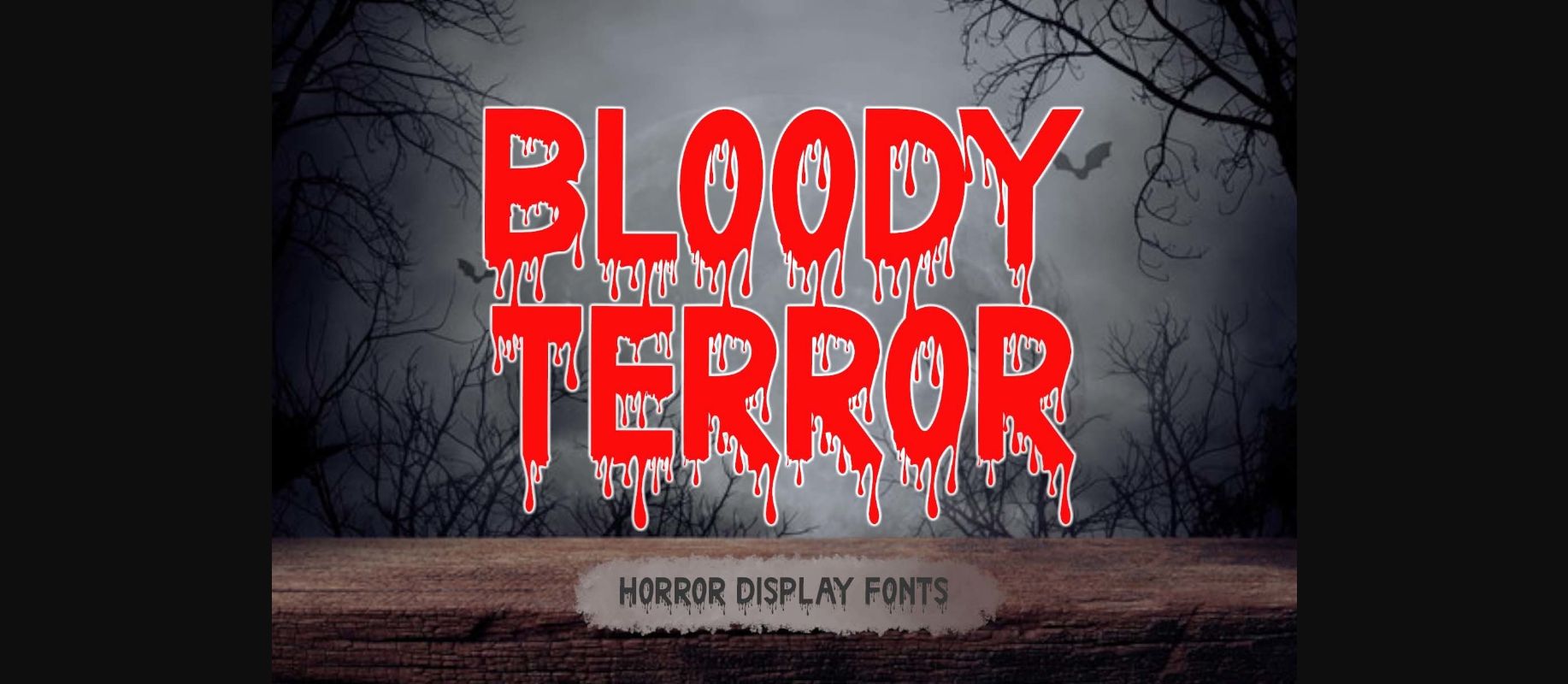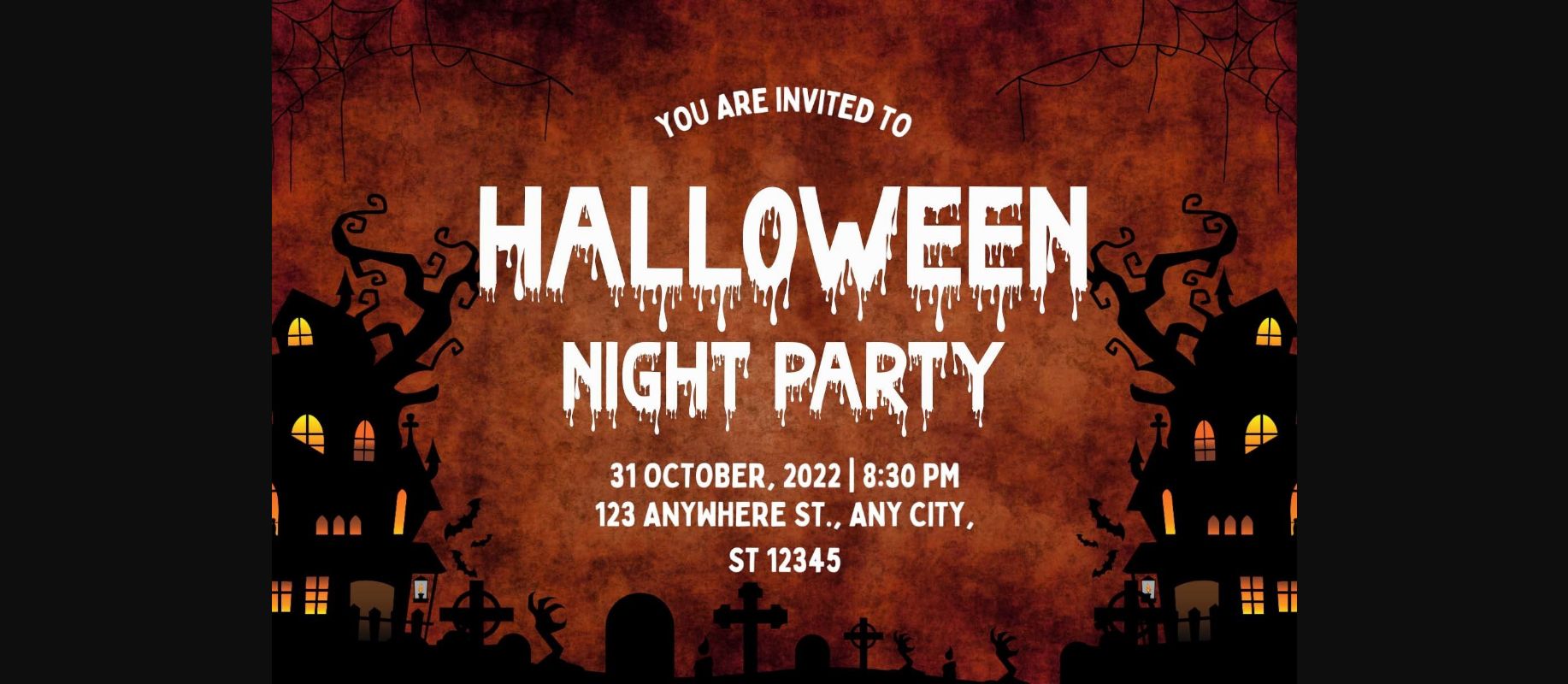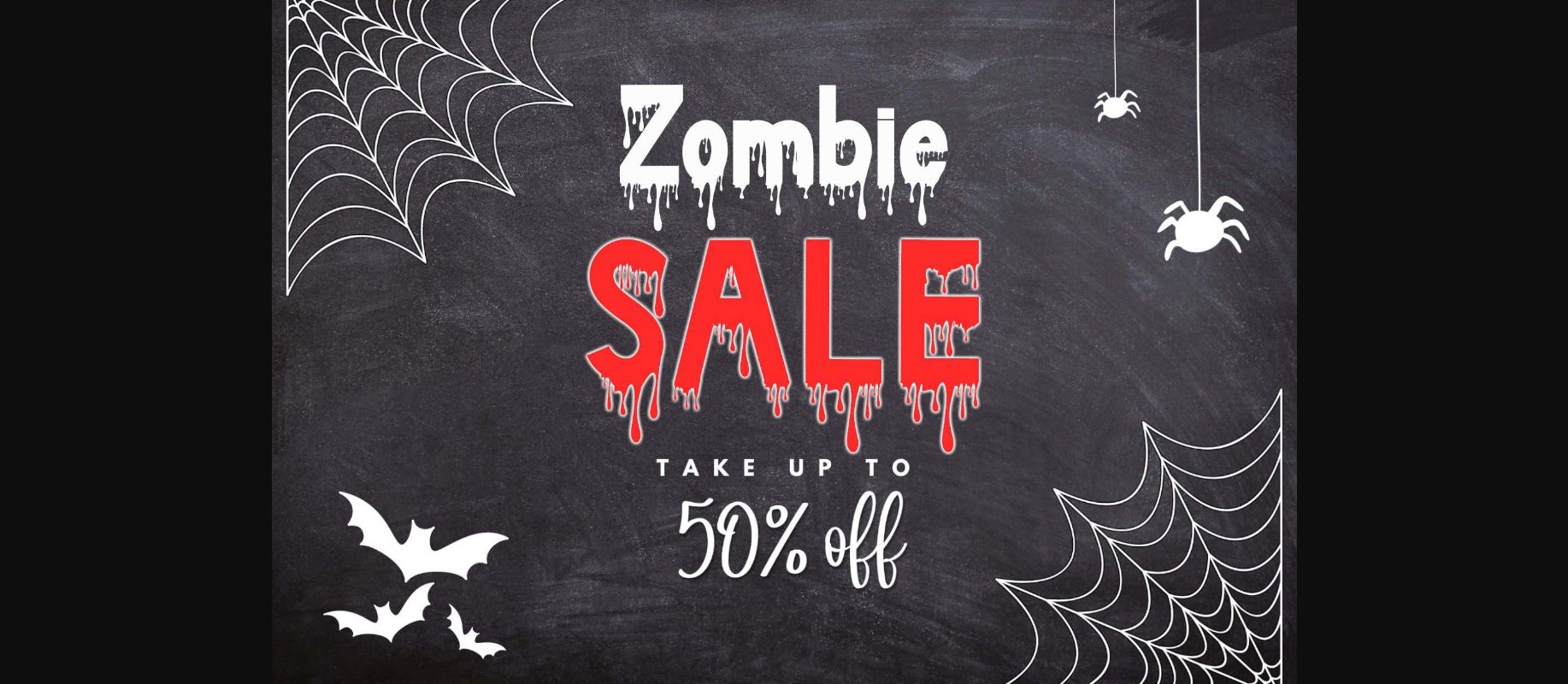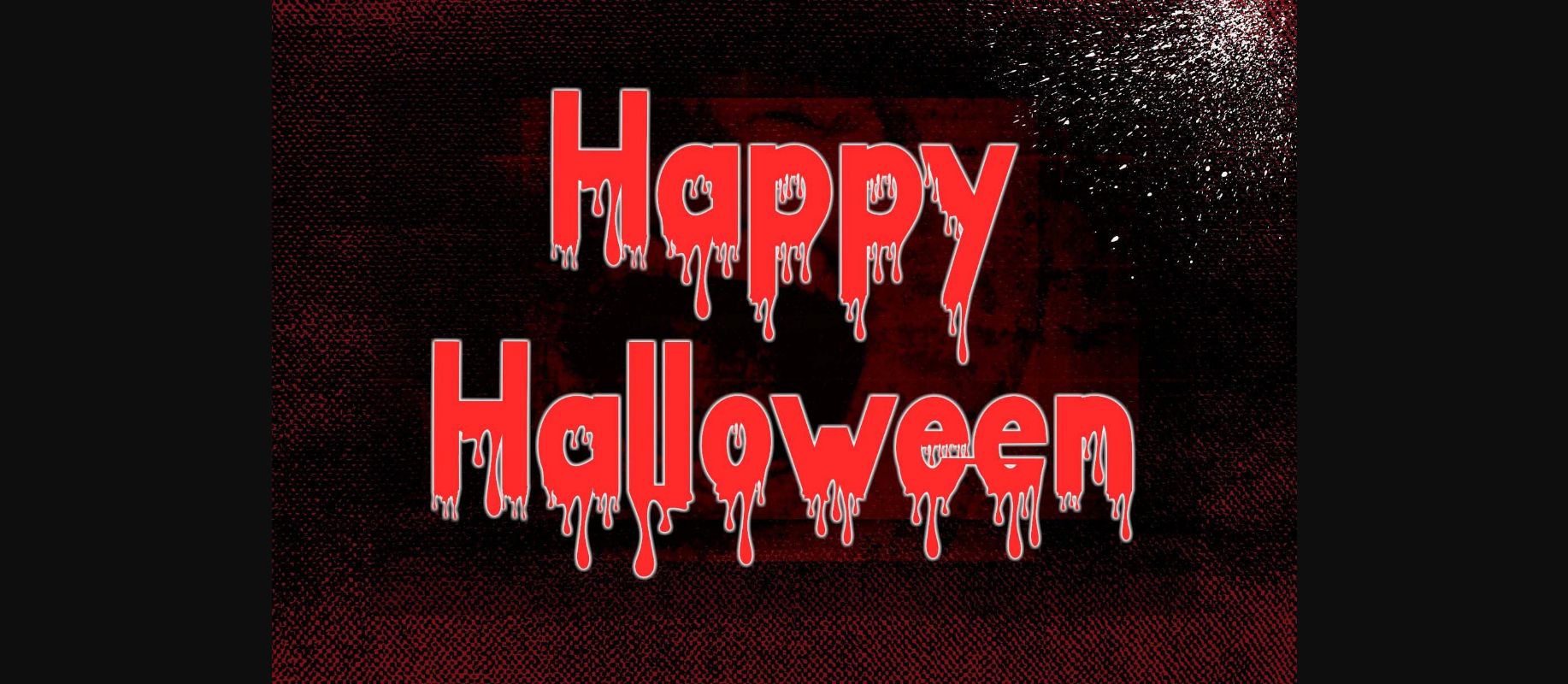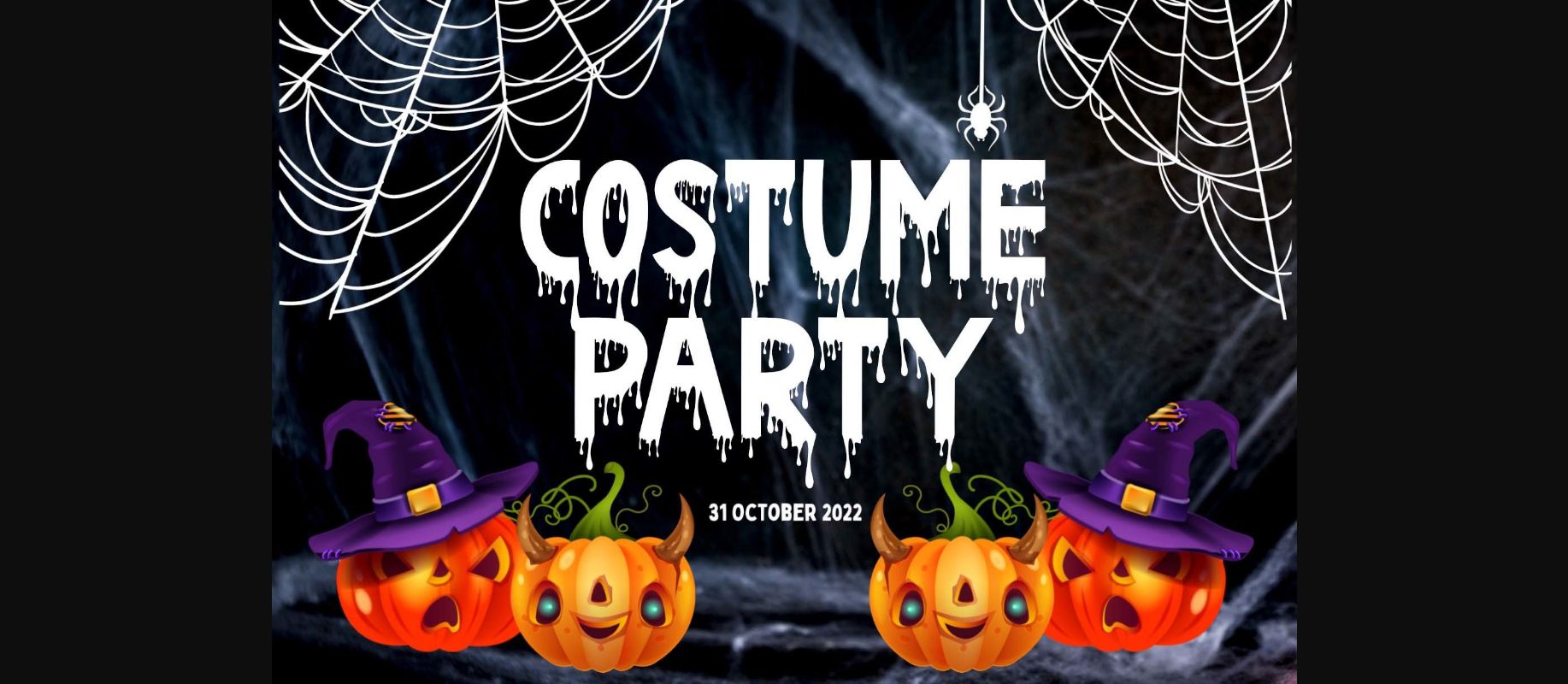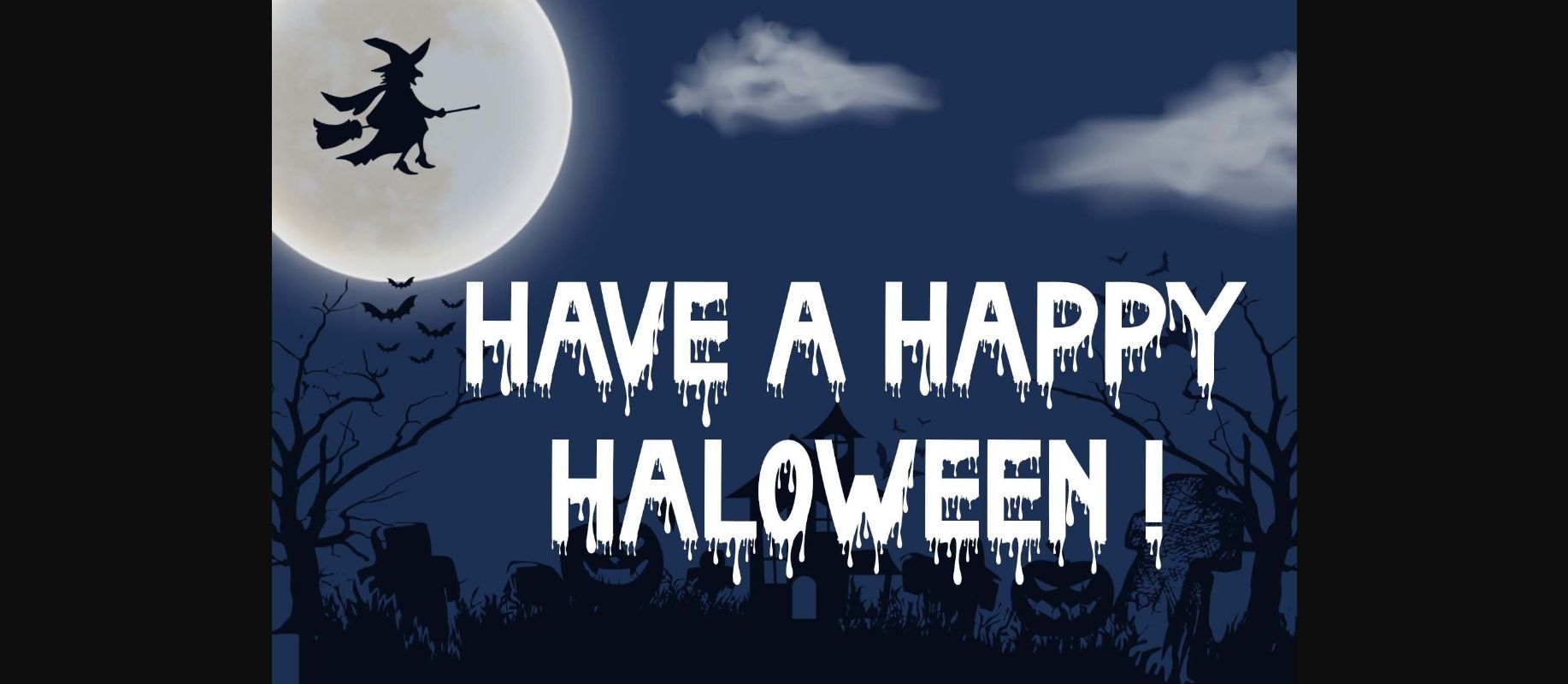
Bloody Terror Font
About Bloody Terror Font
“Bloody Terror” is a decorative font featuring letters like blood dripping. This font is perfect for Halloween moments, Halloween greetings, Halloween invitations, movie titles, comics, and more.